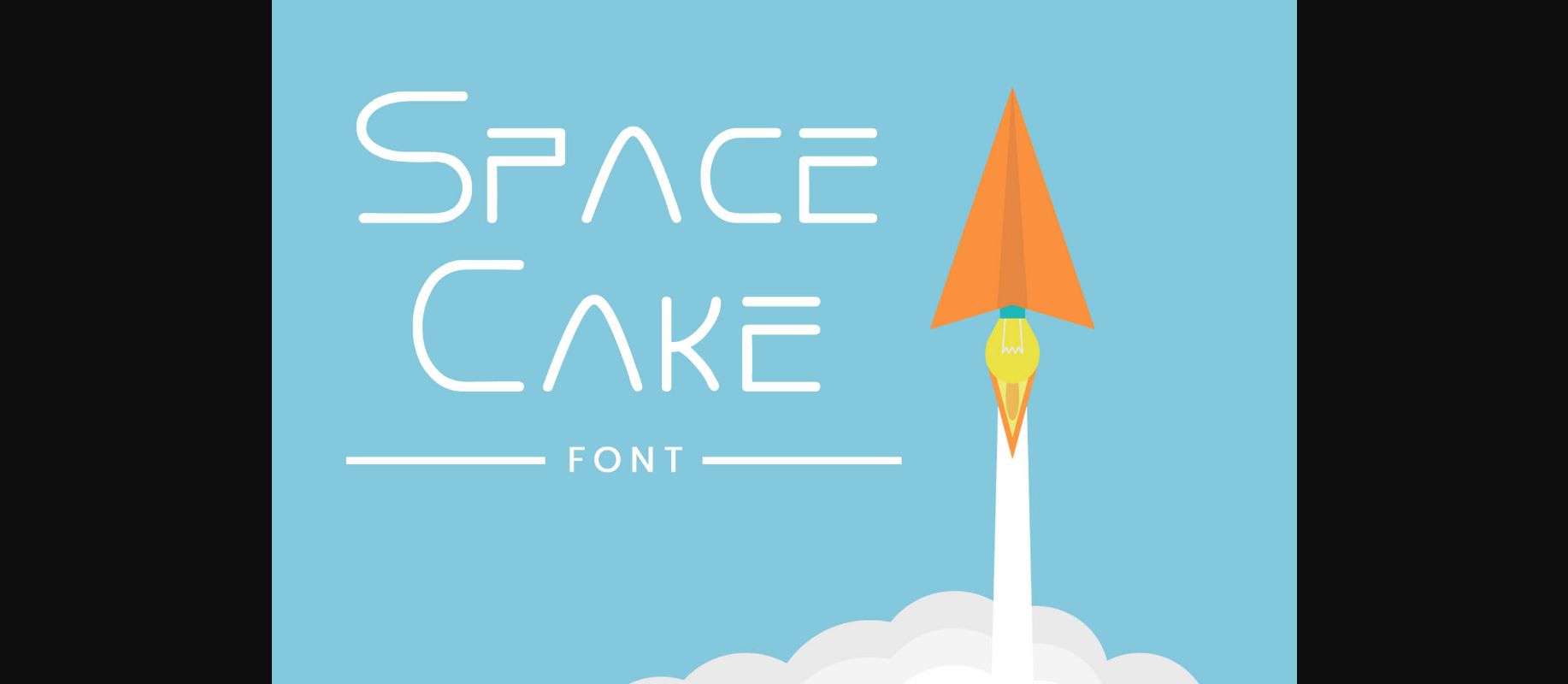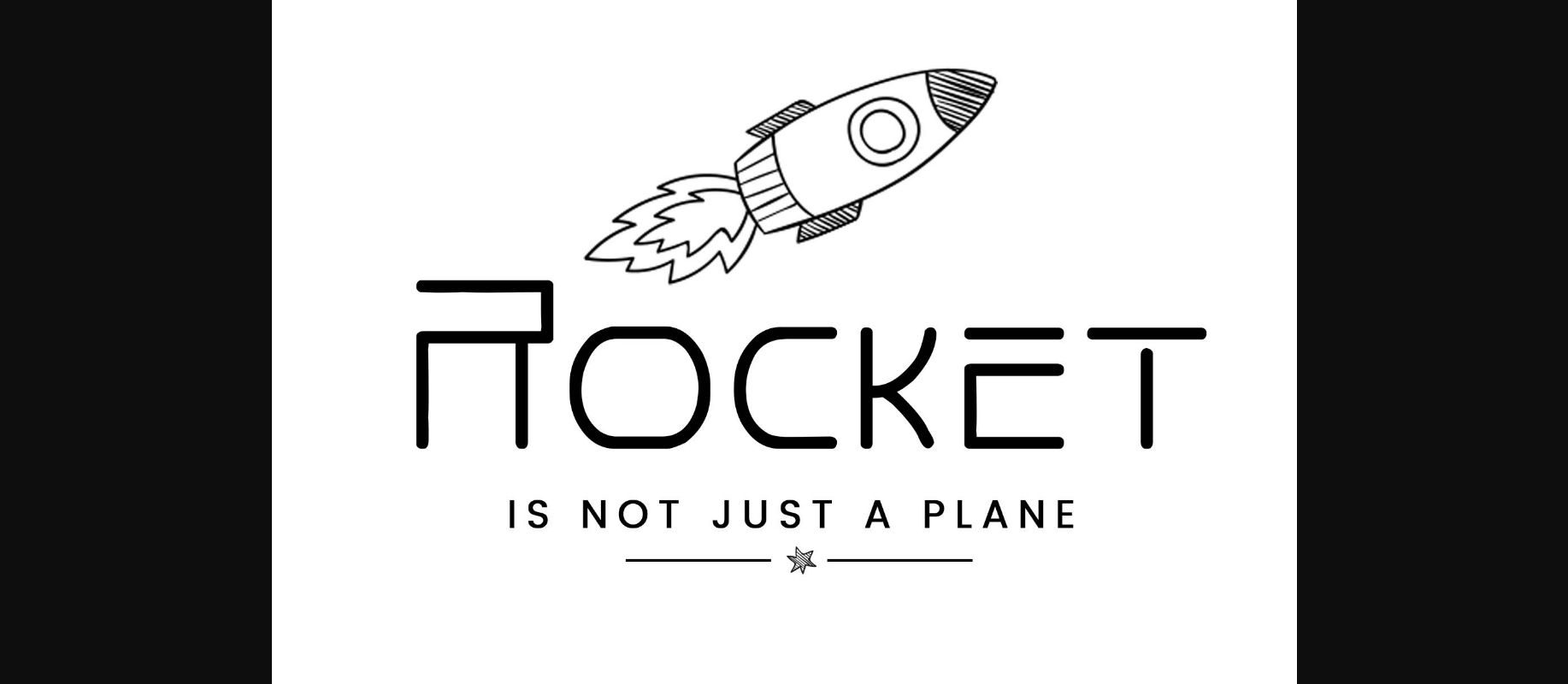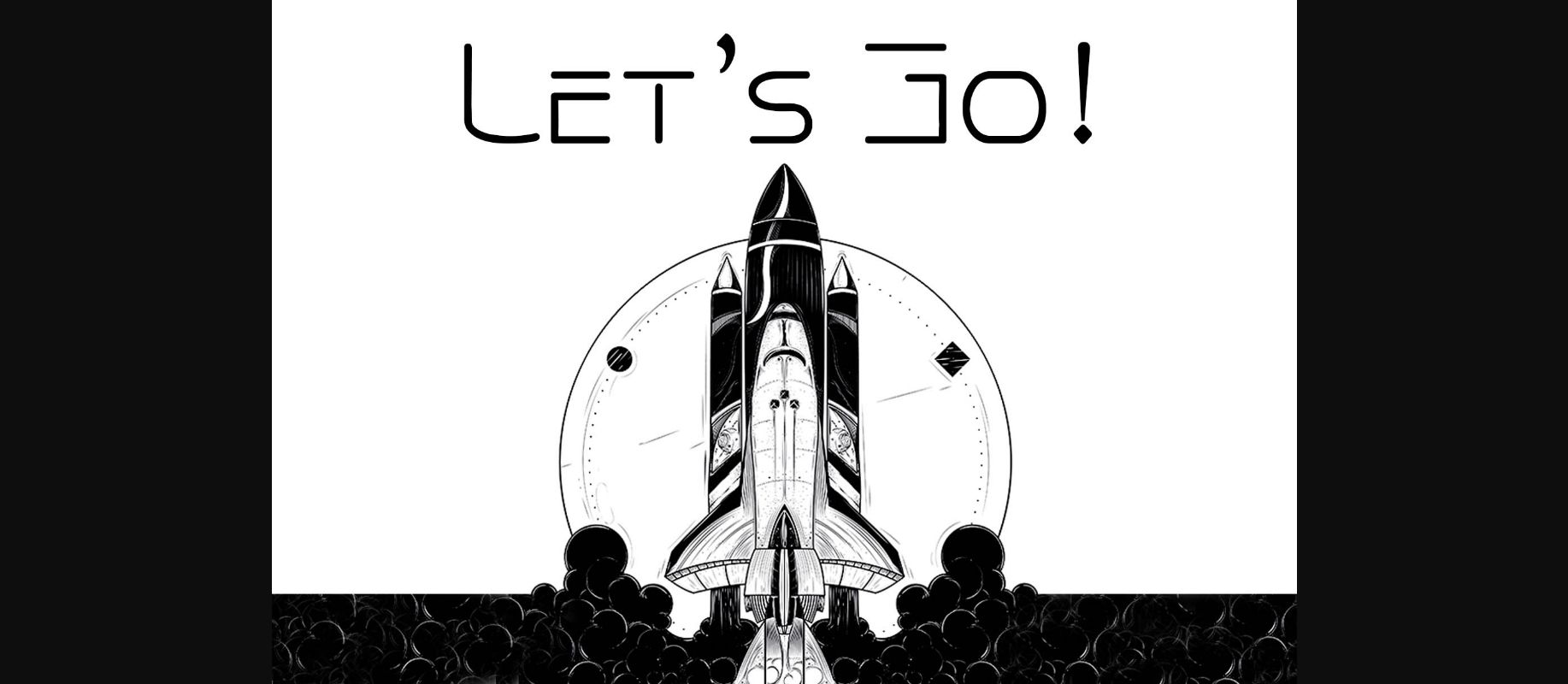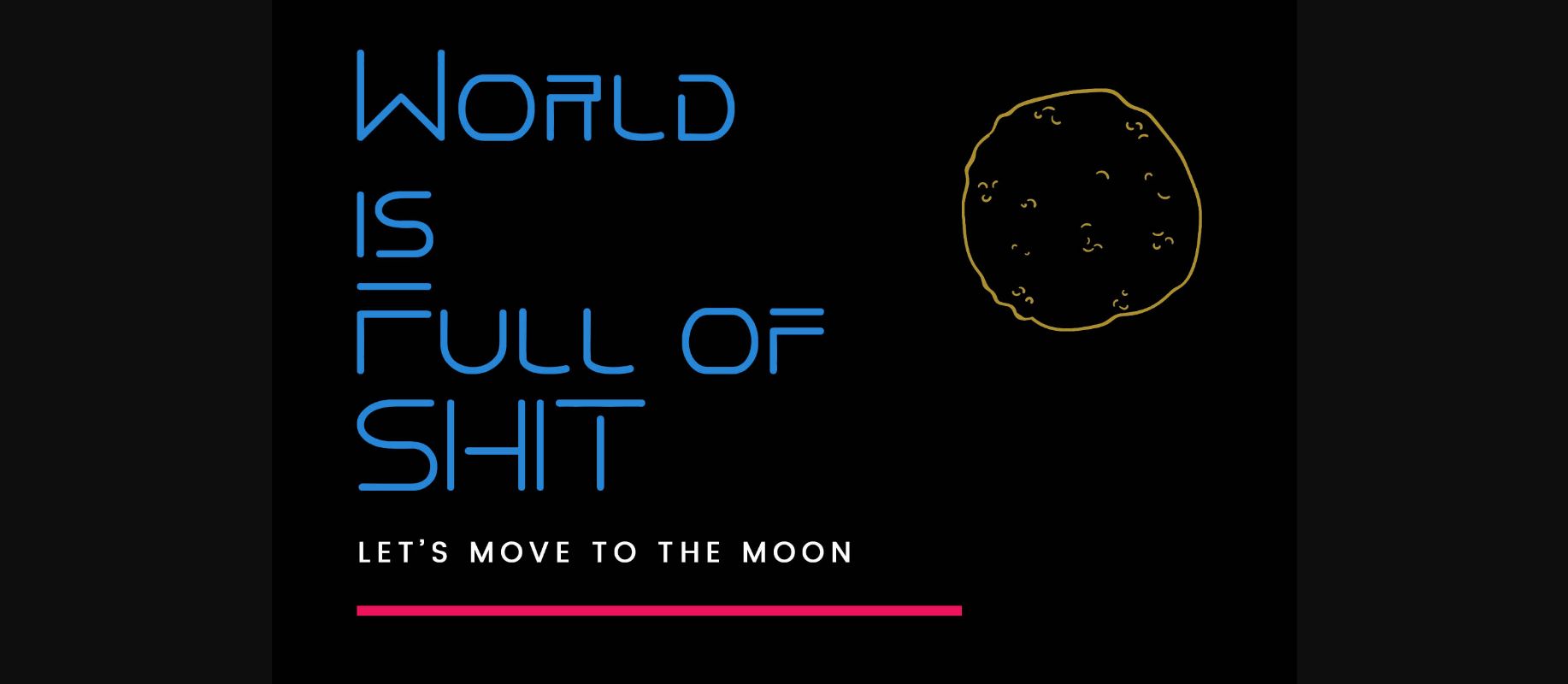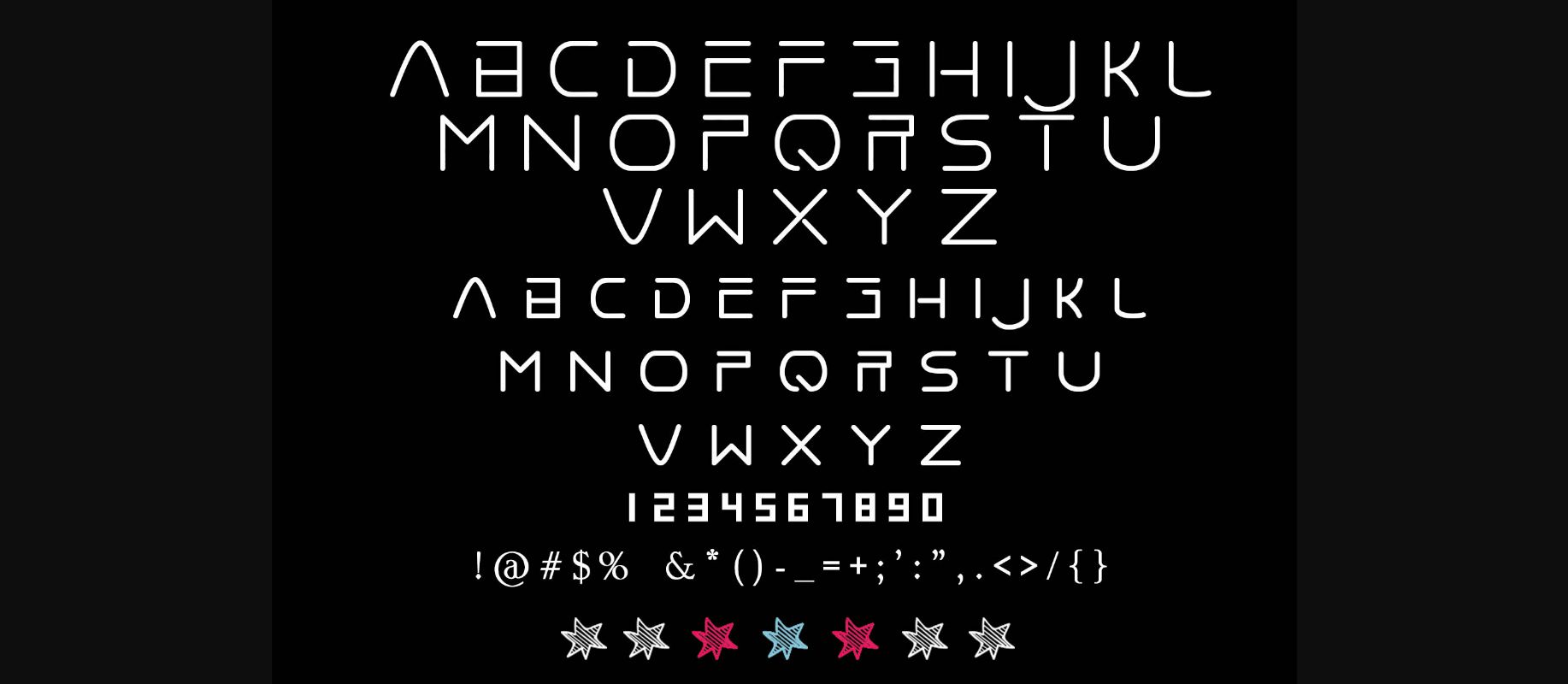
Space Cake Font
About Space Cake Font
“Hey there, this time I tried to create something with a space theme. so, here is the Space Cake font. I think it’s a great way to make your design more catchy, elegant, and unique. Honestly, I dedicate the creation of this font for all of you guys who really want to move to space, especially Americans.”